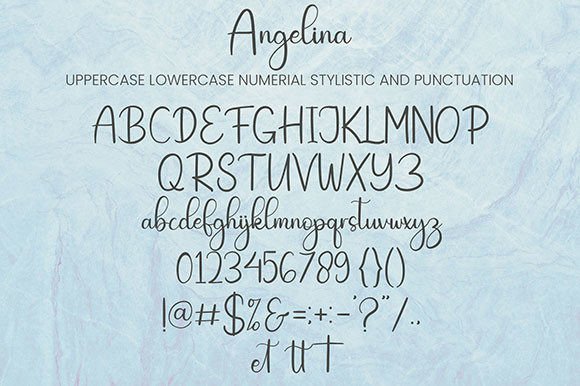
Introducing Angelina Font: Elevate Your Designs with Elegance and Sophistication
In the world of typography, fonts play a crucial role in conveying the tone and personality of a design. For designers and crafters seeking a fresh and elegant script font, Angelina Font is an excellent choice. This versatile font is suitable for a wide range of projects, including quotes, logos, blog headers, posters, ribbons, fashion, clothing, letters, invitations, and stationery.
What Makes Angelina Font Stand Out?
Angelina Font boasts a unique blend of classic elegance and modern flair, making it an ideal choice for designers looking to add a touch of sophistication to their work. Its fresh and elegant design ensures that your projects stand out from the crowd, while its versatility allows it to be used across various mediums and applications.
Key Features of Angelina Font
• Script Font Style: Angelina Font features a beautiful script style that adds a touch of elegance and refinement to any design.
• Fresh and Elegant Design: The font’s modern yet classic design ensures that it remains timeless and versatile.
• High-Quality Letters: Each letter is carefully crafted to ensure high-quality and clear representation in various sizes and applications.
• Wide Range of Applications: From quotes and logos to blog headers and stationery, Angelina Font is suitable for a diverse array of projects.
Whether you’re a professional designer or a crafter looking to add a personal touch to your projects, Angelina Font is an excellent choice. Its elegant design and versatility make it an ideal font for:
• Logos and Branding: Create a lasting impression with a custom logo that exudes elegance and sophistication.
• Blog Headers and Titles: Elevate your blog’s aesthetic with beautiful, eye-catching headers and titles.
• Posters and Flyers: Add a touch of class to your posters and flyers with Angelina Font’s elegant script style.
• Fashion and Clothing: Use Angelina Font to create stunning labels, tags, and packaging for your fashion brand.
• Invitations and Stationery: Add a personal touch to your invitations, cards, and stationery with this beautiful script font.
Tips for Using Angelina Font Effectively
To get the most out of Angelina Font, consider the following tips:
• Pair with Complementary Fonts: Combine Angelina Font with complementary fonts to create a visually appealing contrast.
• Experiment with Sizes and Colors: Play with different sizes and colors to add depth and interest to your designs.
• Use for Headlines and Titles: Take advantage of Angelina Font’s elegant design by using it for headlines and titles.
Angelina Font is a versatile and elegant script font that can elevate your designs to new heights. Its fresh and modern design, combined with its classic elegance, makes it an excellent choice for designers and crafters seeking a sophisticated font for their projects. With its wide range of applications and ease of use, Angelina Font is sure to become a staple in your design toolkit.